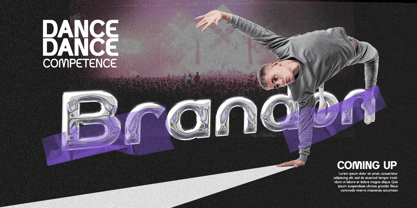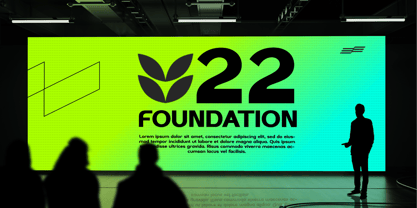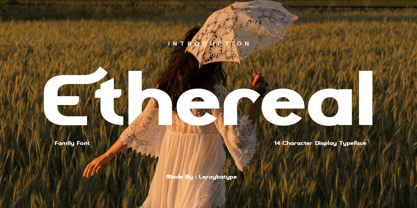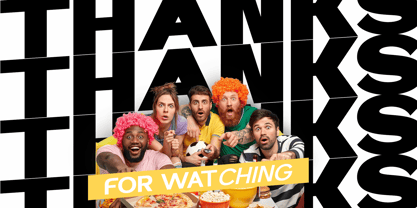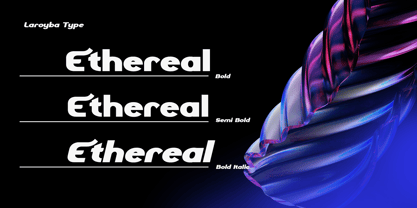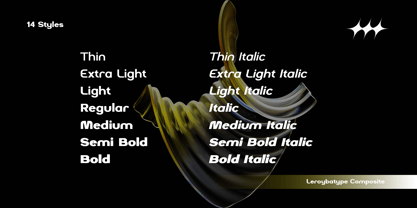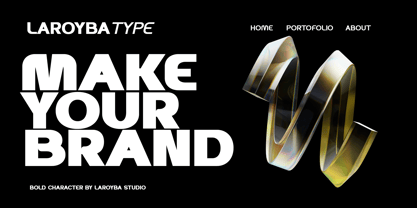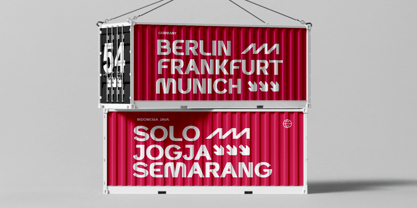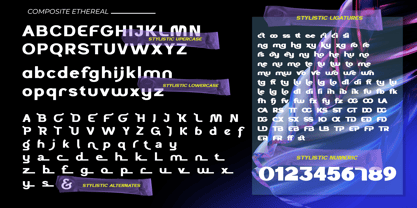
Ethereal Sans
by Laroyba Type
The Ethereal Sans Font Family was designed by Habib Abdur Rofi and published by Laroyba Type. Ethereal Sans contains 14 styles and family package options. More about this family
Ethereal Sans is a sophisticated and versatile sans serif font family that combines elegance with modernity. Designed with an eye for detail, Ethereal Sans offers a wide array of stylistic alternates and ligatures, making it perfect for both formal occasions and creative design projects.
With its clean lines and balanced proportions, Ethereal Sans can effortlessly elevate any branding, editorial, or web design. The variety of weights and extensive glyph set allow for flexibility, whether you need a refined look for corporate presentations or a bold statement for eye-catching headlines. Its adaptability ensures that Ethereal Sans is suitable for a broad range of design needs, from professional to artistic.
Designers: Habib Abdur Rofi
Foundry: Laroyba Type